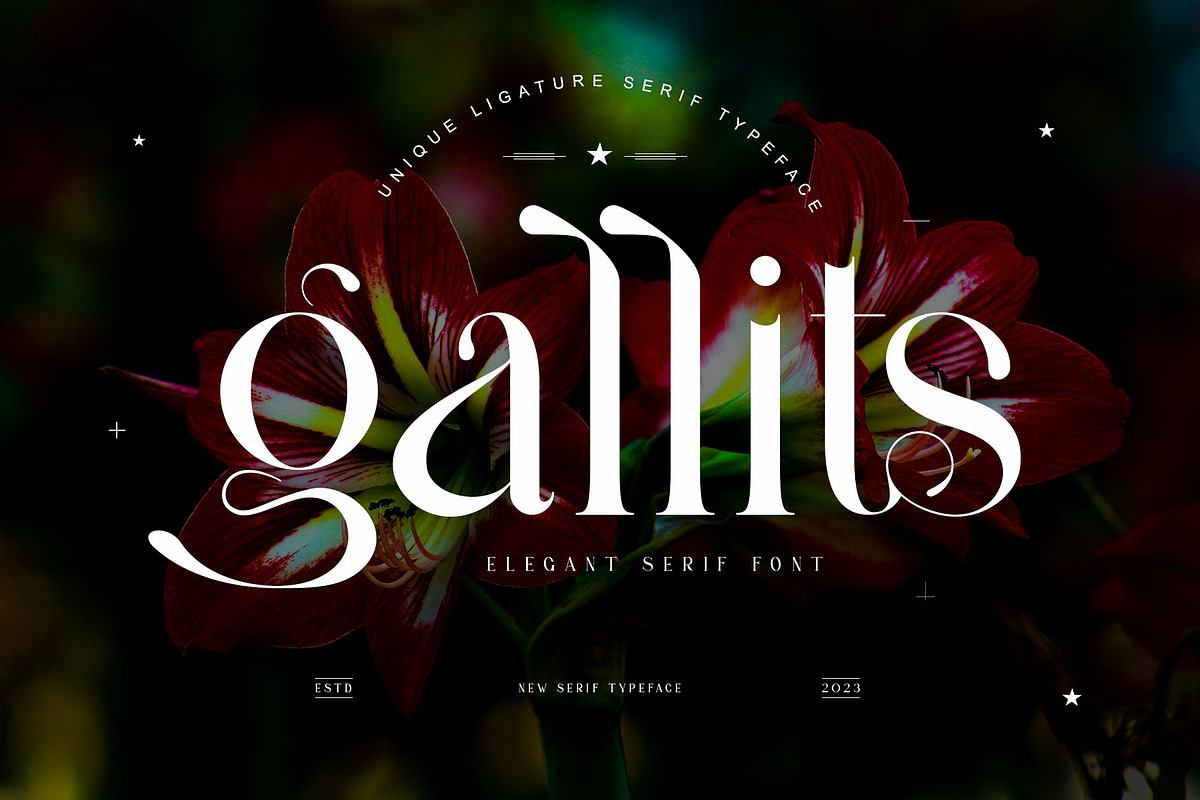
Gallits Ligature Serif Typeface Free Download is a sophisticated and elegant serif font designed with intricate ligatures that add a unique touch to your typography. Perfect for high-end branding, editorial design, logos, invitations, and any project that requires a refined, professional look, this typeface brings both style and readability to your designs.
The ligatures in Gallits create an artistic and distinctive feel, giving your typography a personal, creative flair. Its classic serif design ensures that it is versatile enough for both print and digital projects. Whether you're working on a luxury brand, a creative campaign, or an elegant event, Gallits adds a sophisticated touch to your work.